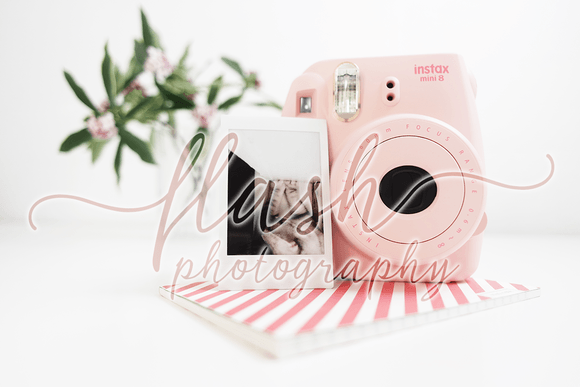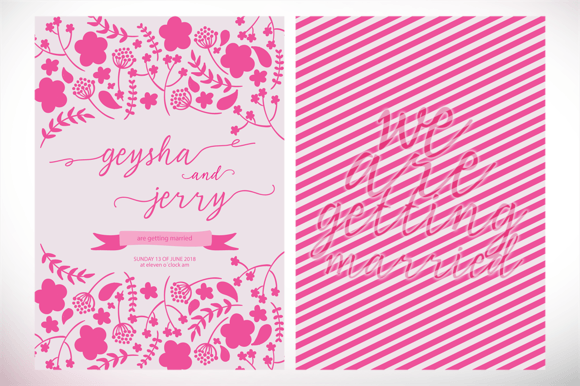
Geysha Font: Elevate Your Designs with Elegance and Style
Geysha Font is a stunning, handwritten script that exudes movement and sophistication. This beautiful font is perfect for designers and crafters looking to add a touch of elegance to their projects. With its unique and readable style, Geysha Font is ideal for fashion, editorials, or special event design projects.
What Makes Geysha Font Special?
Geysha Font stands out from other fonts due to its distinctive handwritten script style. The font features a ton of movement and style, making it perfect for designs that require a personal touch. Its elegant and refined appearance makes it suitable for high-end fashion brands, editorials, and special events.
Key Features of Geysha Font
- Unique and Readable Style: Geysha Font boasts a distinctive and easy-to-read style, making it perfect for body text and headlines.
- Elegant and Refined Appearance: The font’s elegant and refined appearance makes it suitable for high-end fashion brands, editorials, and special events.
- Tons of Movement and Style: Geysha Font features a ton of movement and style, adding a personal touch to your designs.
- Fashion, Editorials, and Special Events: The font is perfect for fashion, editorials, or special event design projects, such as wedding invitations, fashion magazines, and event branding.
How to Use Geysha Font in Your Designs
Geysha Font is versatile and can be used in various design projects. Here are some ideas to get you started:
- Fashion Magazines and Editorials: Use Geysha Font as a headline or body font to add a touch of elegance to your fashion editorials.
- Wedding Invitations and Stationery: Add a personal touch to your wedding invitations and stationery with Geysha Font.
- Event Branding: Use Geysha Font to create stunning event branding, such as event logos, signage, and promotional materials.
- Fashion Brand Identity: Incorporate Geysha Font into your fashion brand identity, including logos, packaging, and advertising materials.
Tips for Pairing Geysha Font with Other Fonts
Pairing Geysha Font with other fonts can create a stunning visual effect. Here are some tips to help you get started:
- Pair with Sans-Serif Fonts: Pair Geysha Font with sans-serif fonts, such as Arial or Helvetica, for a clean and modern look.
- Combine with Serif Fonts: Combine Geysha Font with serif fonts, such as Times New Roman or Georgia, for a classic and elegant appearance.
- Experiment with Script Fonts: Experiment with pairing Geysha Font with other script fonts to create a unique and creative look.
| Author | BONJOURTYPE |
Geysha Font is a beautiful and elegant handwritten script that can elevate your designs to the next level. With its unique and readable style, tons of movement and style, and suitability for fashion, editorials, or special event design projects, Geysha Font is a must-have for designers and crafters. Experiment with Geysha Font today and discover the perfect font for your next design project.